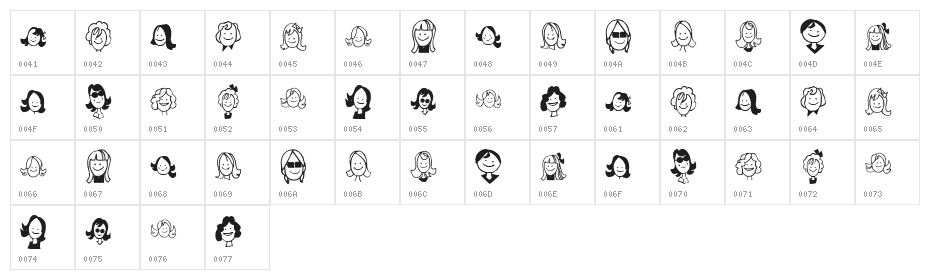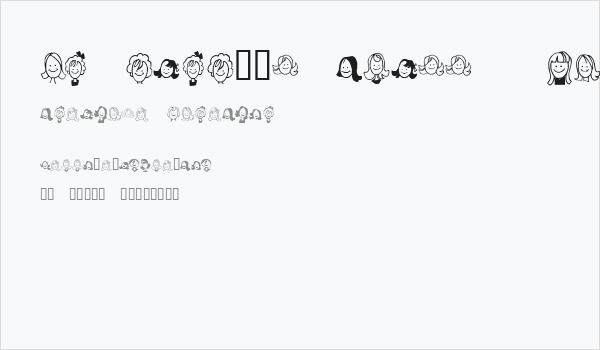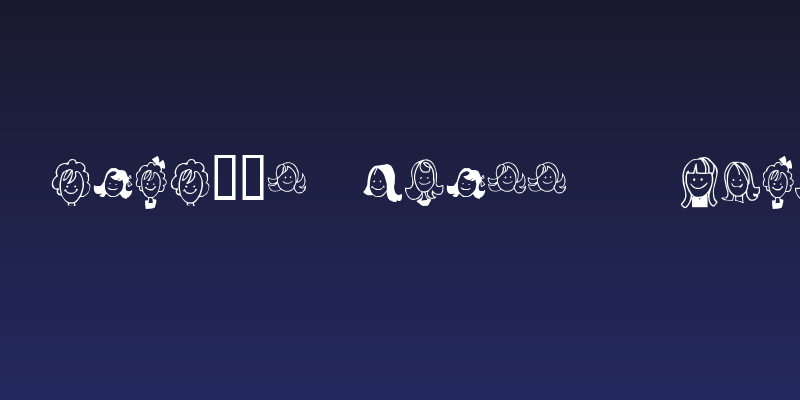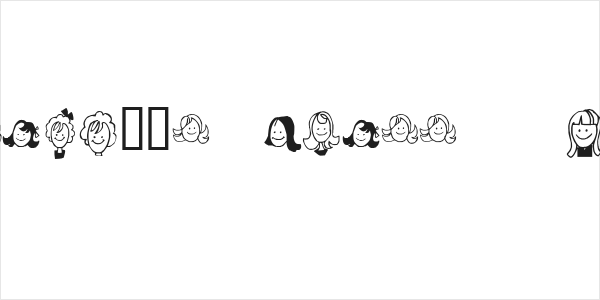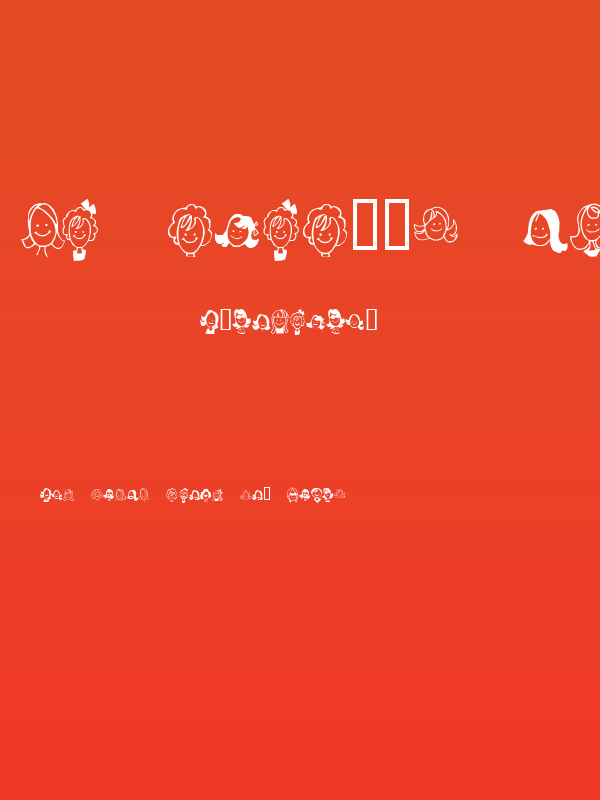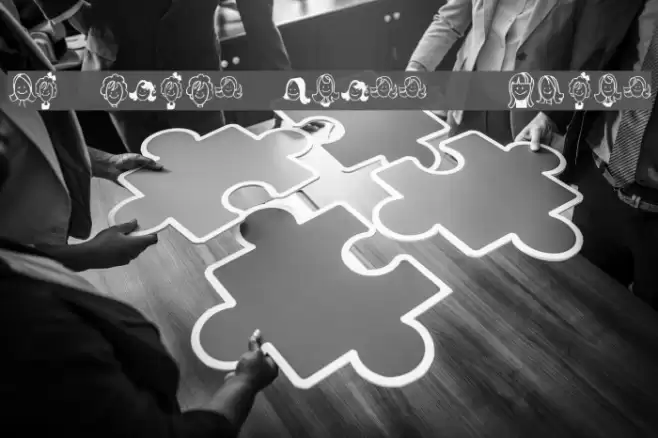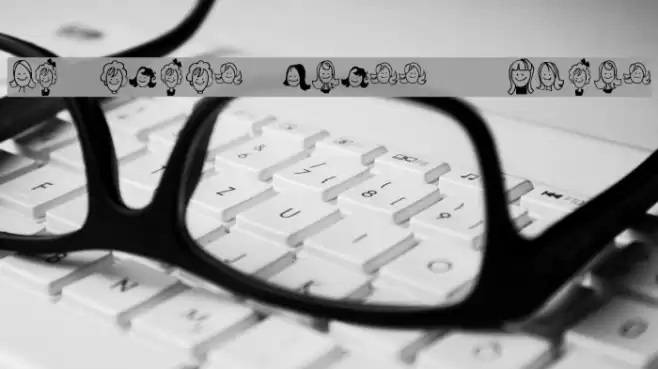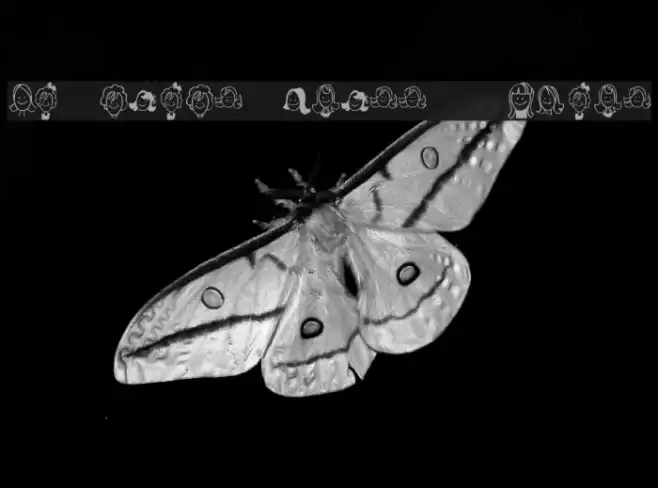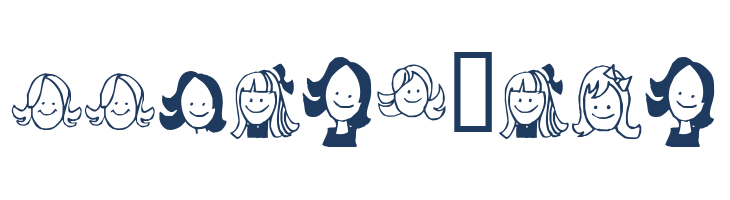
KR Barb's Class Girls Font
This is not a traditional font but rather a collection of whimsical and playful illustrations depicting various cartoon-style characters. Each character is unique, featuring different hairstyles, accessories, and expressions, creating a lively and engaging visual experience. The characters are drawn in a simple, bold line art style, making them easily recognizable and suitable for a variety of creative projects. The absence of traditional alphanumeric characters suggests that this set is intended more for decorative purposes rather than text-based communication.
| Use Case | Decorative elements, Illustrations |
| Proposed Projects | Ideal for children's books, educational materials, greeting cards, or any project requiring a fun and whimsical touch. |